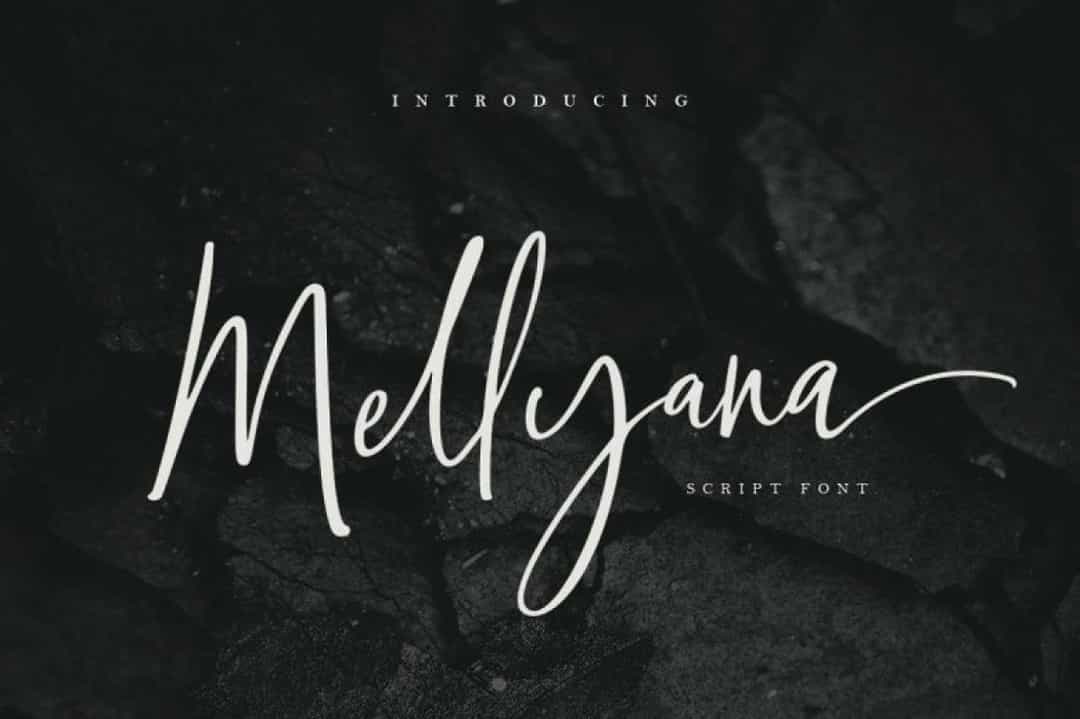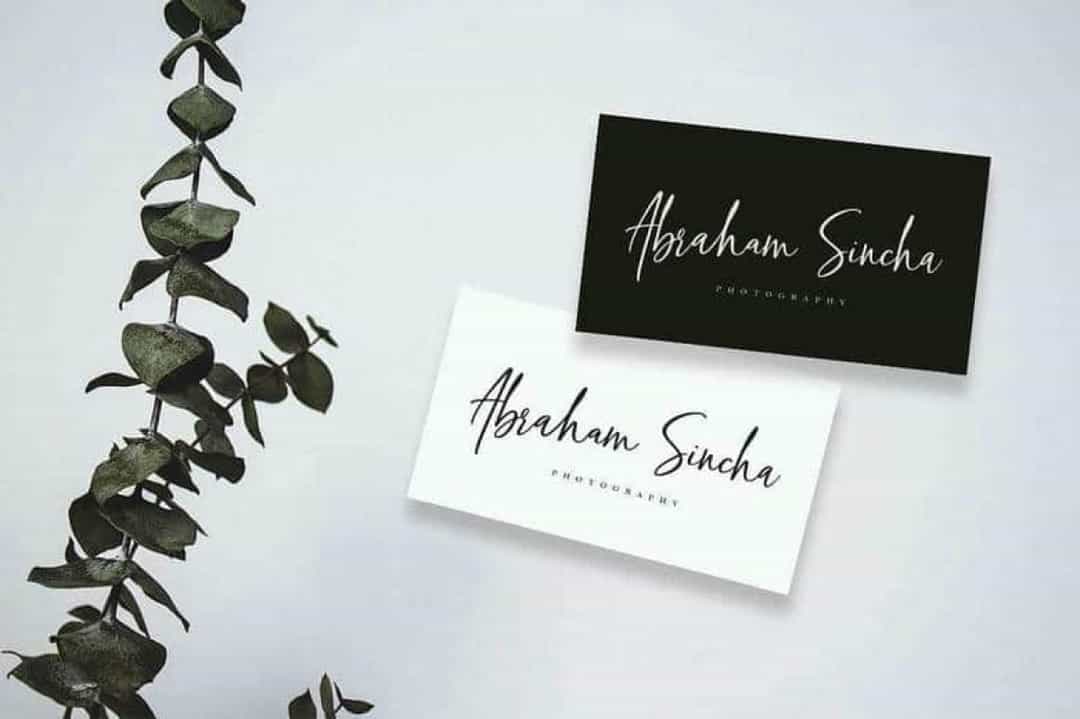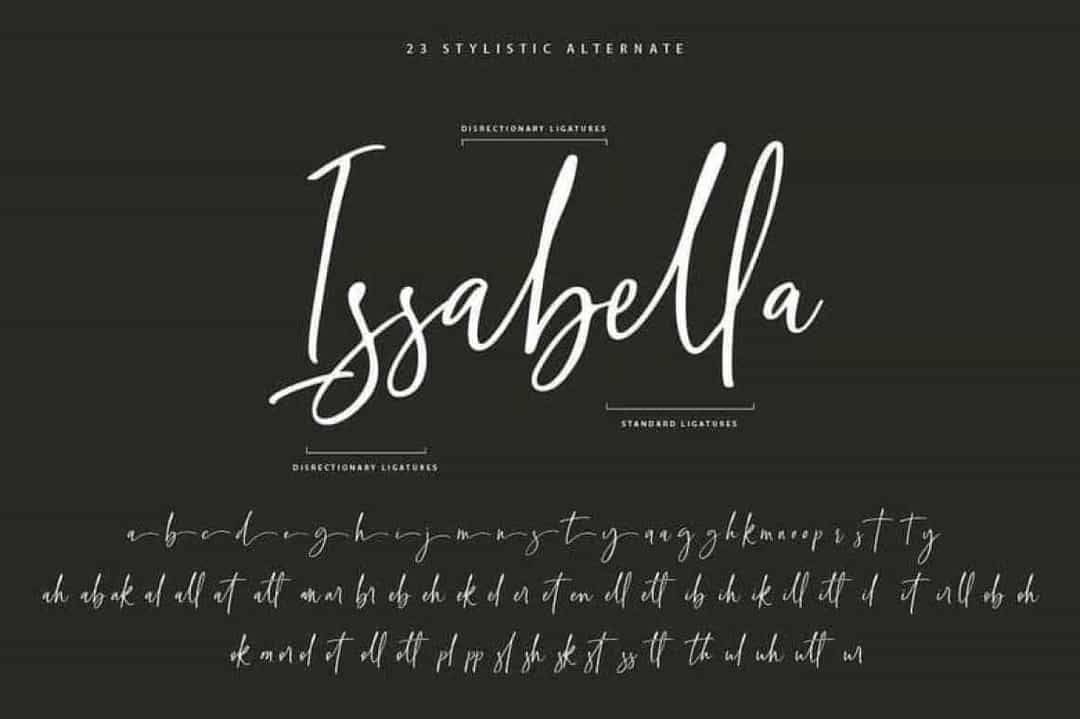
Mellyana Script is casual, make people fell comfortable and popular, youthful, & feminine. A minimalist style makes Mellyana suitable for fashion, e-commerce businesses, trendy blogs, or any business that would like to get an elegance vibe.